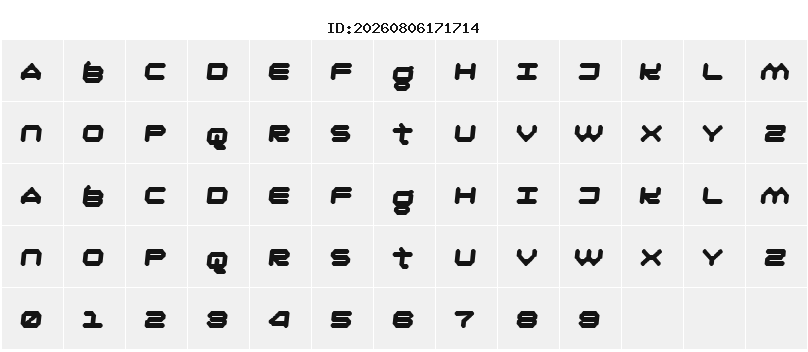
Oliray41 Preview
• Font Name: Oliray41
• Font Style: Italica
• Font ID: Oliray41 Italica
• Full Font Name: Oliray41 Italica
• PostScript Name: Oliray41Italica
About Oliray41.ttf
Oliray41.ttf is a modern, elegant sans-serif font designed for ultimate readability and visual harmony. Perfect for branding, headlines, web design, and print materials.